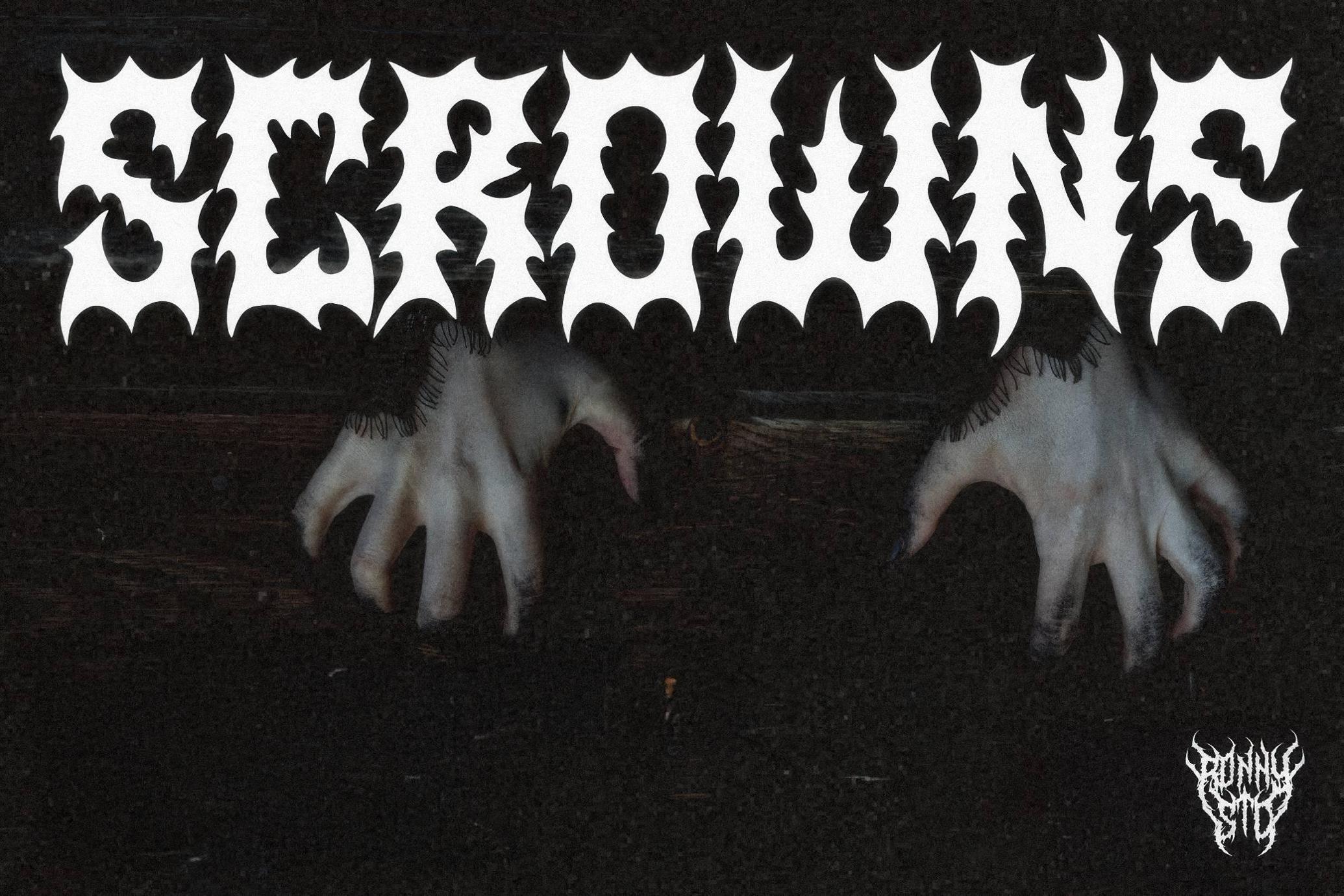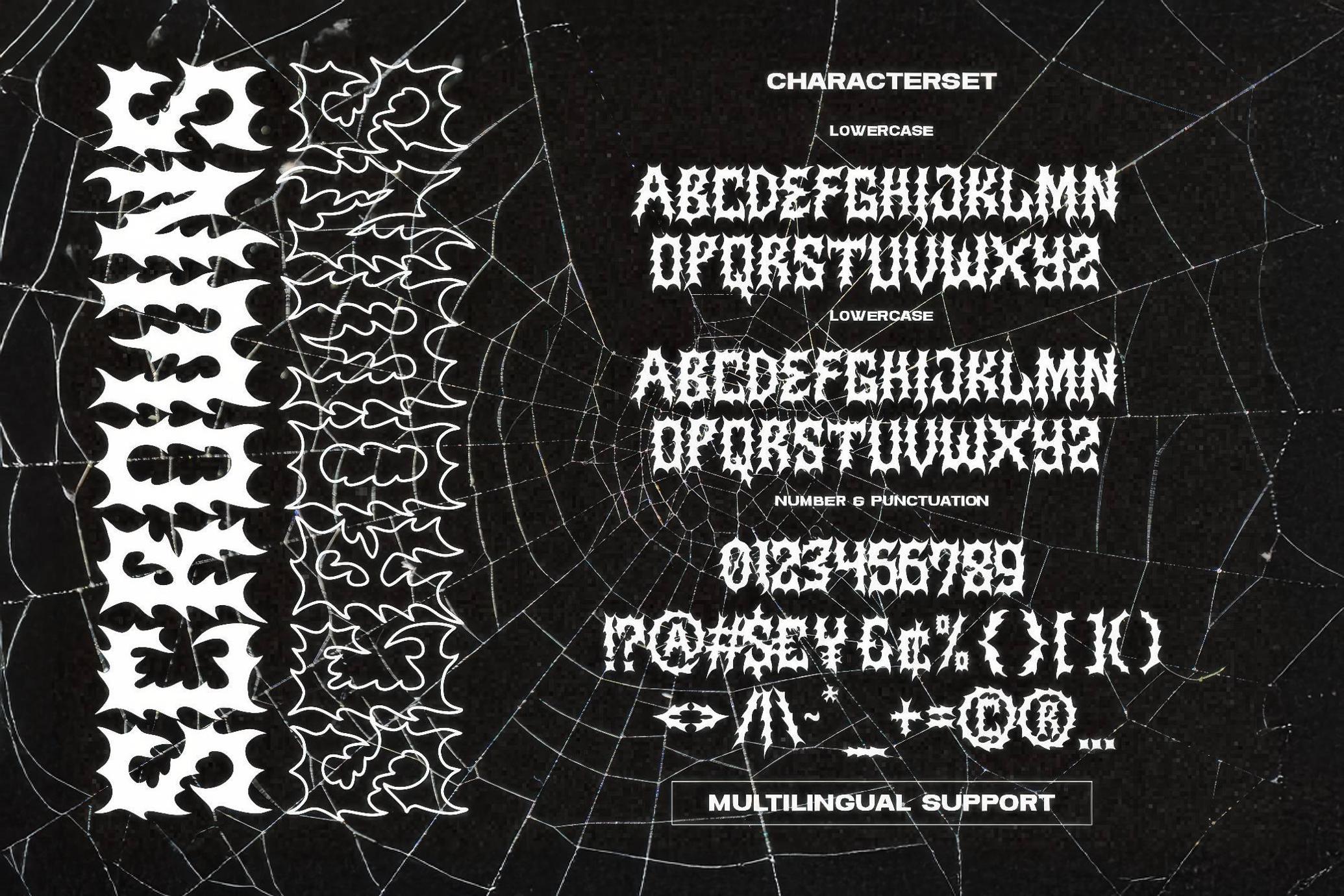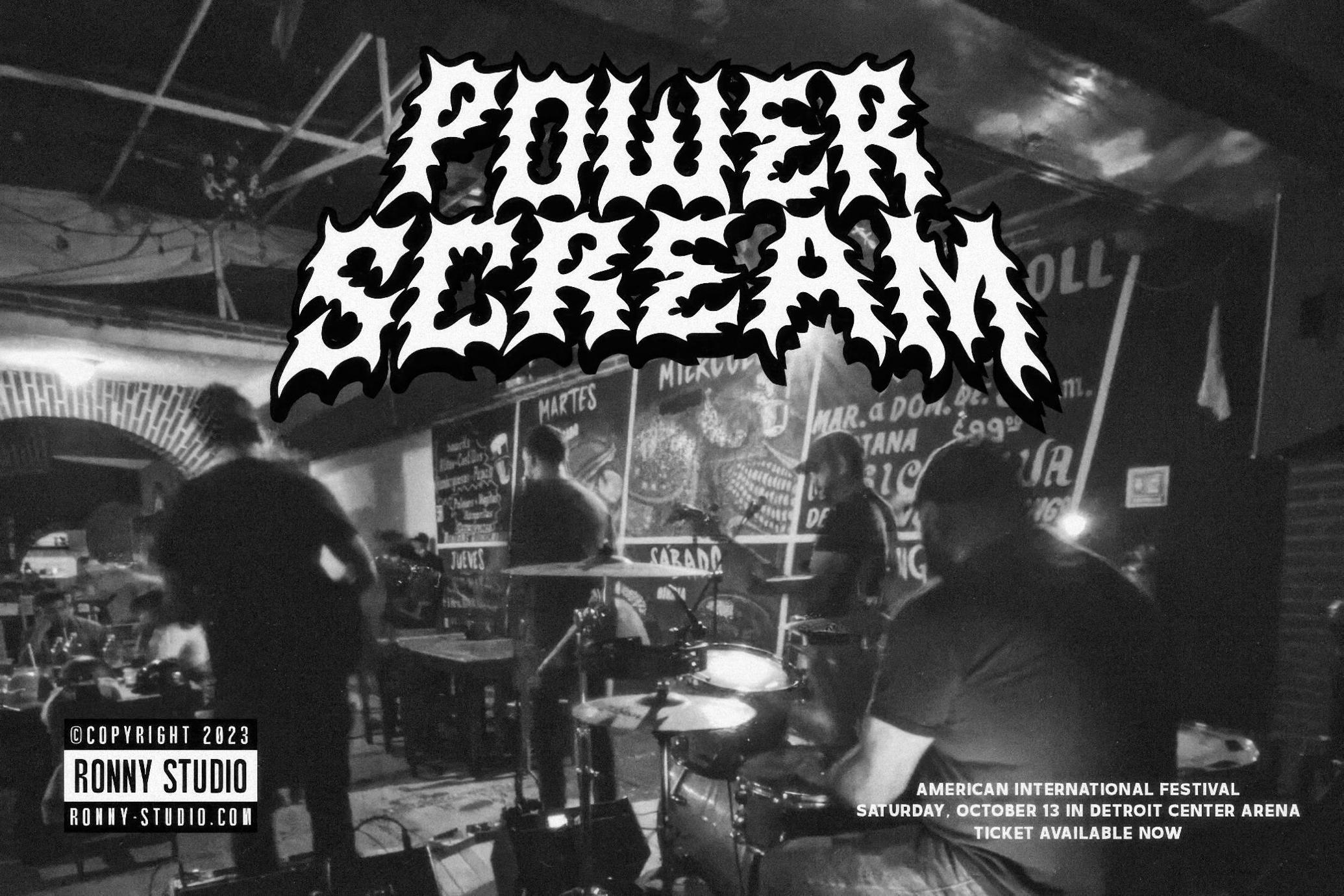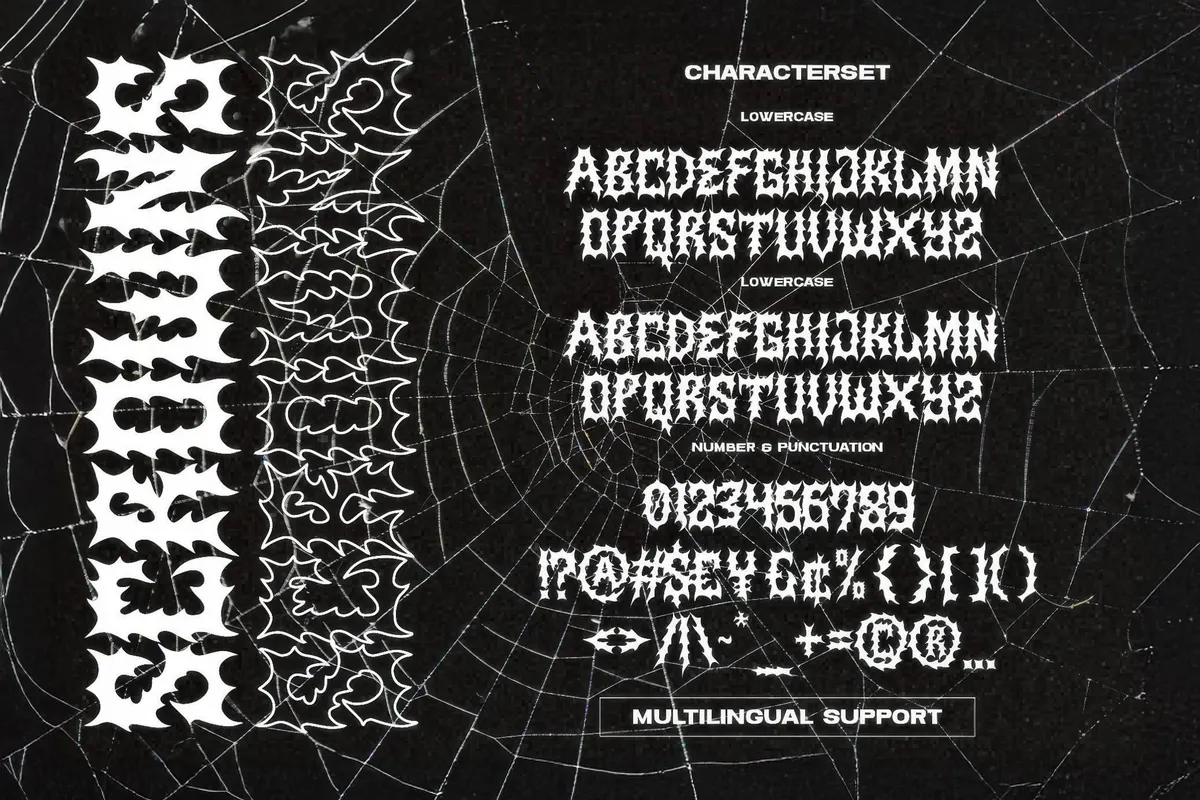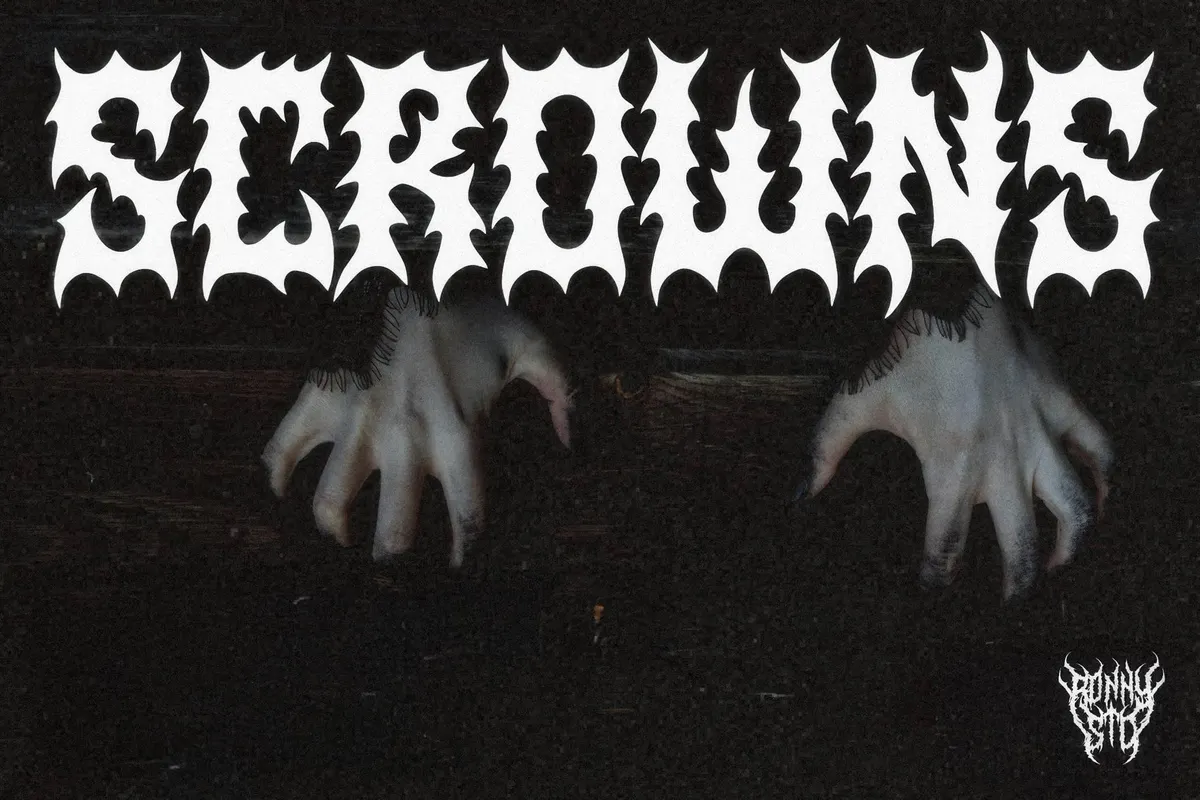
Scrowns — Metalhead Font
Scrowns
If your logo doesn’t look like it could shred a guitar solo and bite the hand that drew it, it’s time to meet Scrowns. Its twisted letterforms channel the raw aggression of underground metal scenes with a look that’s part sigil, part scream. Every glyph cuts deep, making it the perfect weapon for band logos, festival lineups, horror merch, and anyone bold enough to embrace the brutal. It comes armed with uppercase and lowercase (all caps, of course), numbers, punctuation, ligatures, alternates, and multilingual support — so your fury can go global.